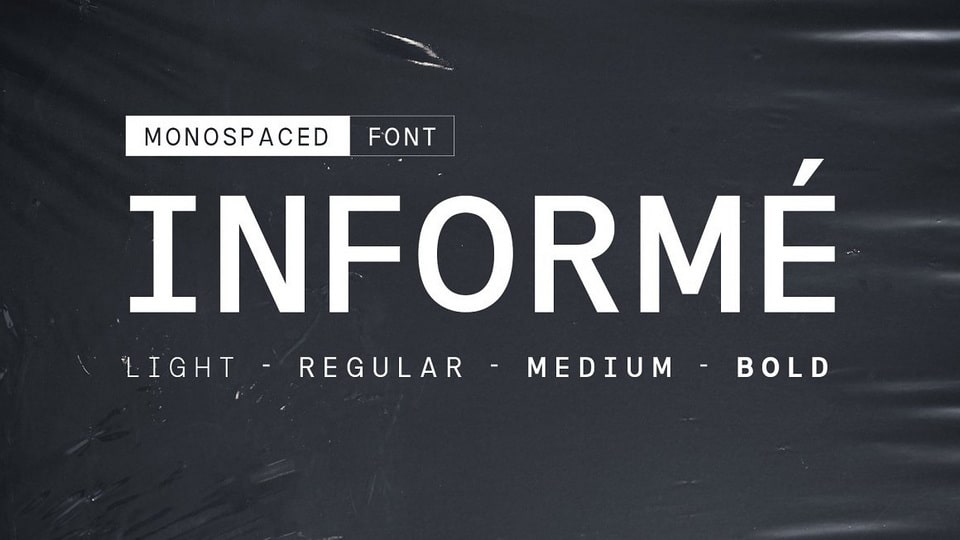
Download Informe font, a modern monospaced typeface. Built with strong letter shapes, and industrial taste. Informe typeface was designed to read well in small and large sizes.